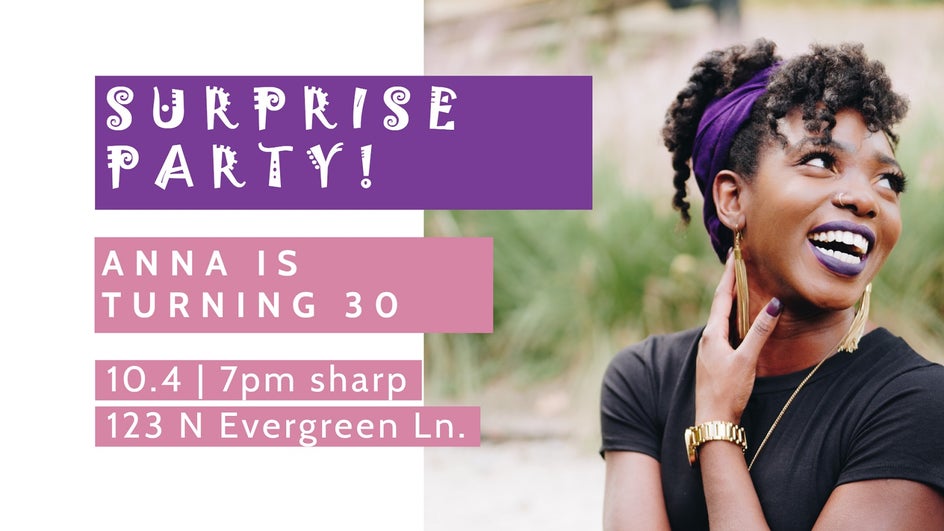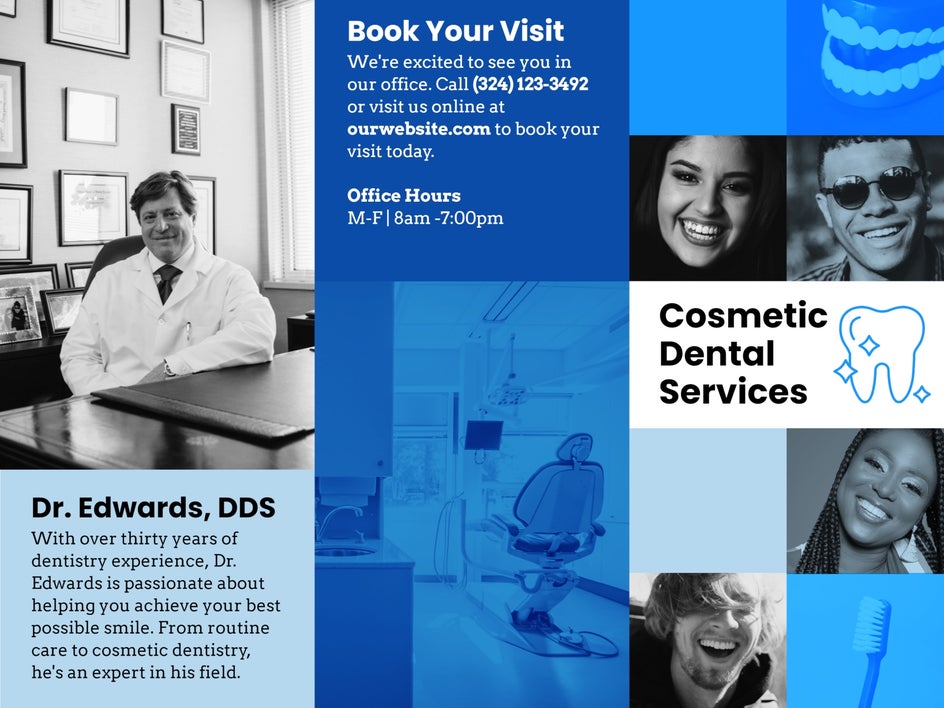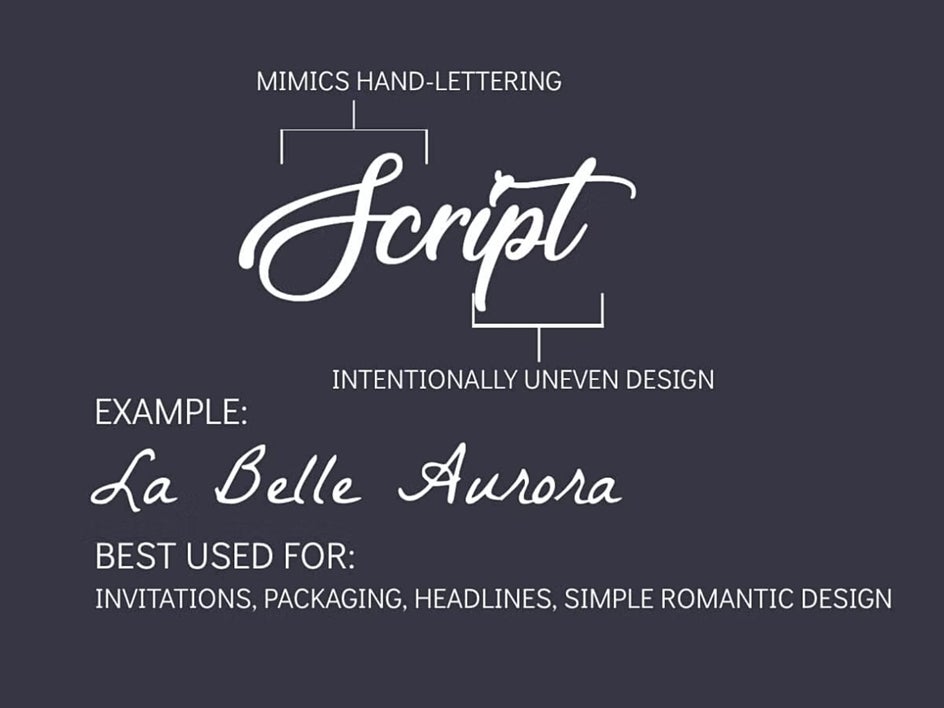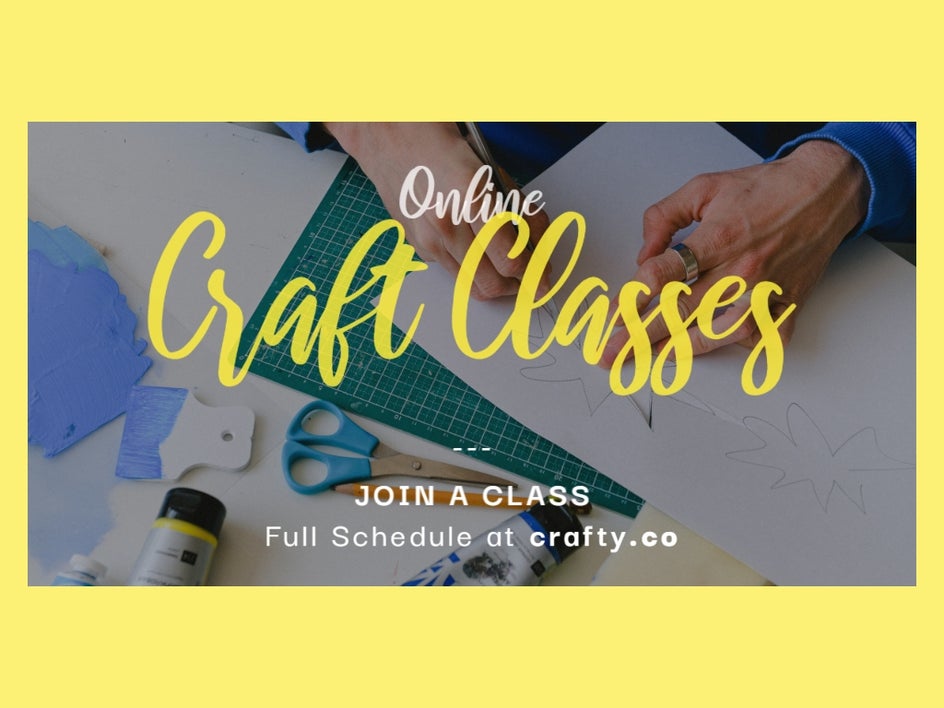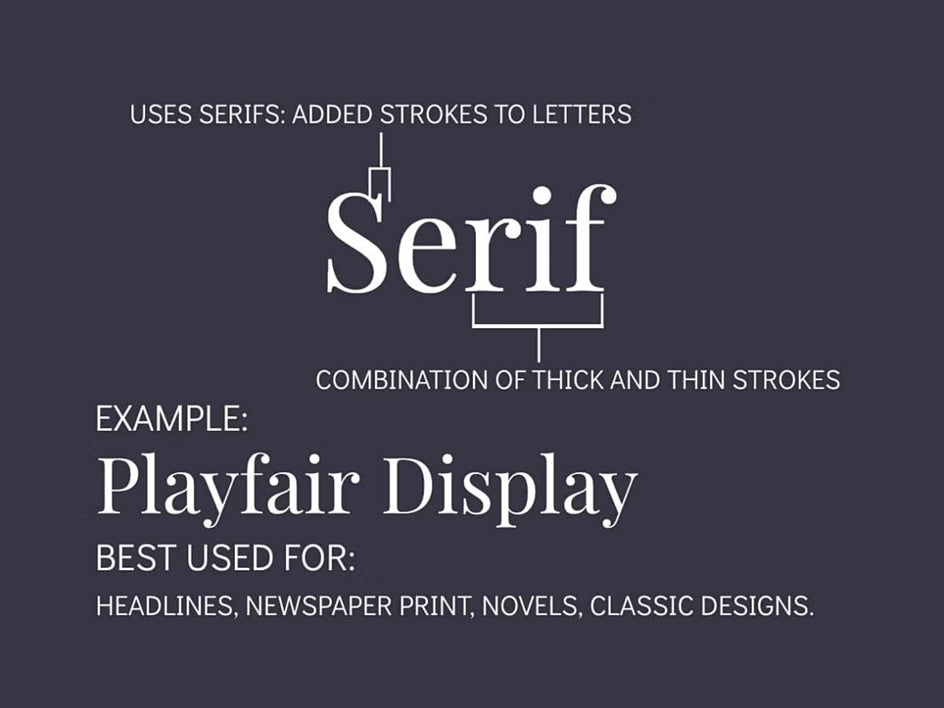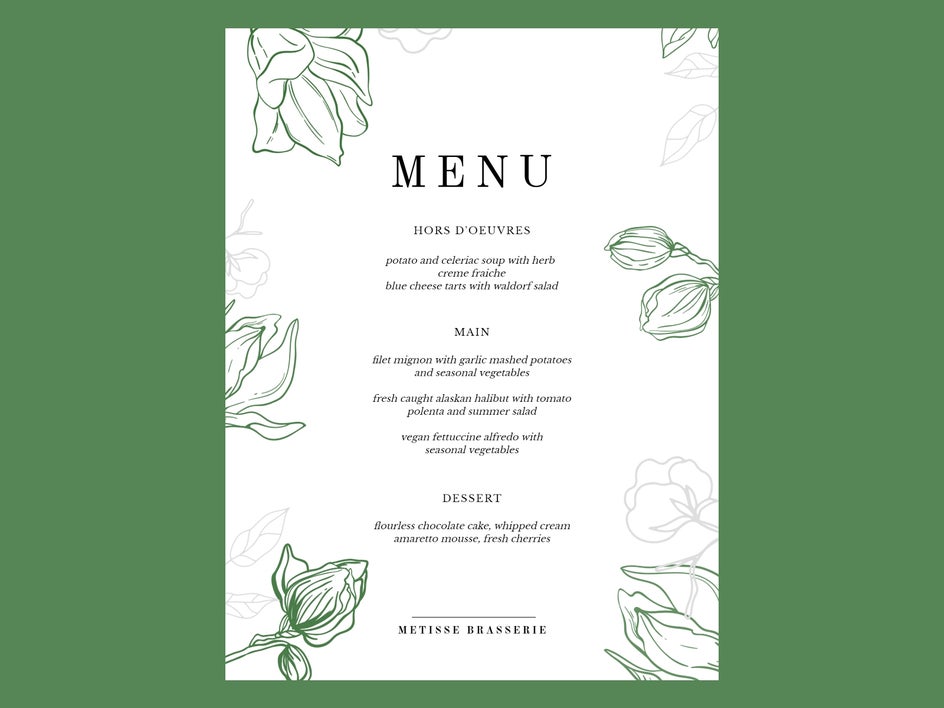
The Best Fonts for Every Occasion
You’ve no doubt heard of color psychology before, but what about the psychology of fonts? The font type you choose to use in your designs isn’t just there to look good. It also influences how others perceive what they’re viewing and can therefore help – or hinder – the message you’re trying to convey.
Best Font Inspiration
Can’t decide between Serif, Sans-Serif, Script, or Display? Don’t worry, we’ve created some design examples to show you which font ideas are worth whipping up and when!
Serif
A Serif font is simply one which contains small decorative marks (known as ‘serifs’) to embellish characters, which also makes them easier to read. When we think of Serif fonts, we tend to imagine those you’d typically see in a newspaper, such as Times New Roman, Garamond, or Baskerville.
Serif fonts imply formality, tradition, respect, and reliability, and are therefore great for using in business related documents, such as CVs, letters, whitepapers, and reports, as well as more formal event invitations or menus.
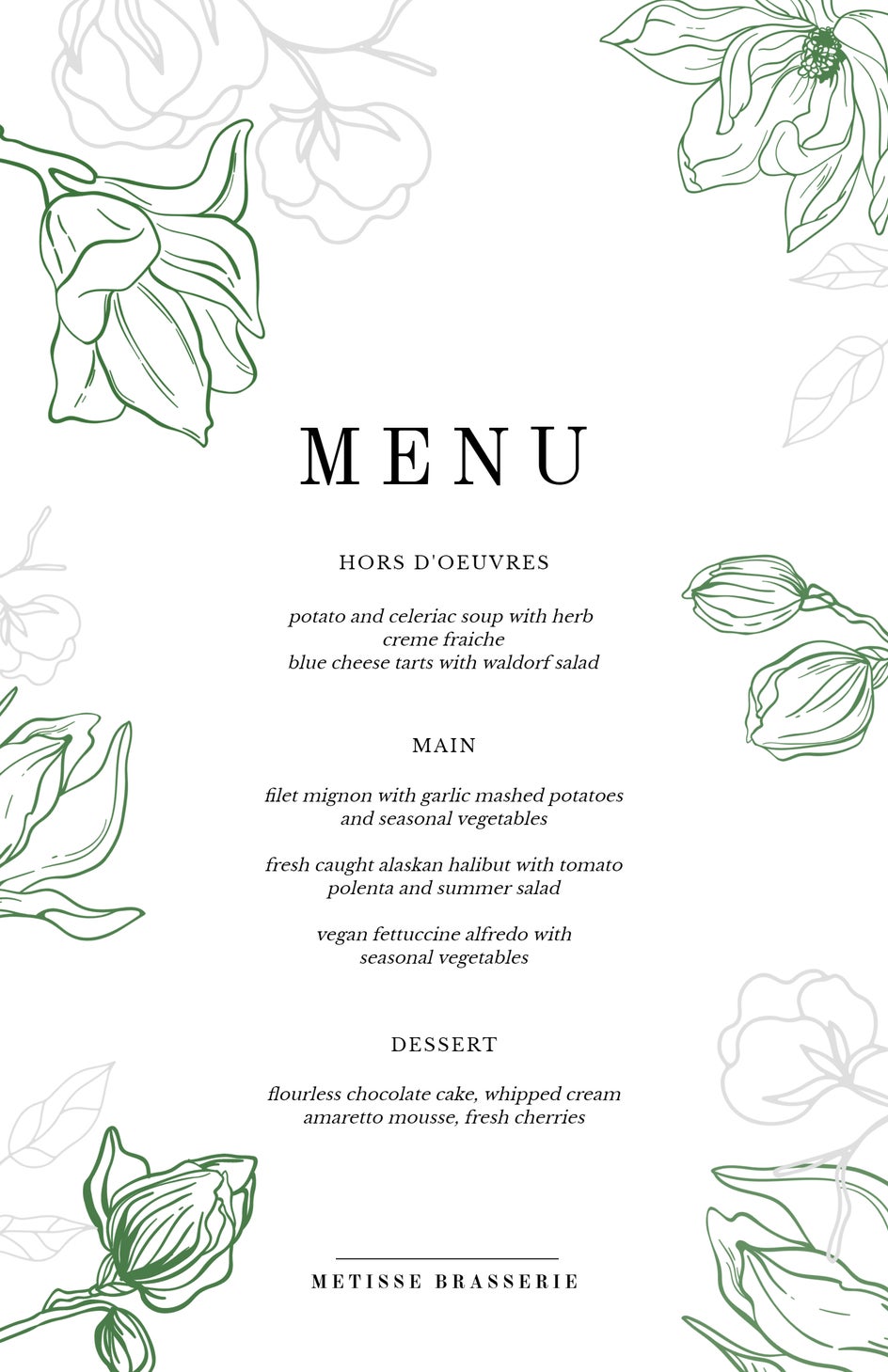
Take this menu, for example, which is intended for a fine dining restaurant. Here, we’ve used the fonts Libre Baskerville and Old Standard TT, which are not only easy to read (especially under dim restaurant lighting) but also do a great job at implying just how fancy this establishment is. Ooh-la-la!
Sans-Serif
Unlike Serif fonts, Sans-Serif fonts don’t contain the small decorative embellishments on their characters. Because of this, they are best reserved for shorter sections of text such as captions or headlines, as they can be a little tricker to read than their Serif counterparts.
Popular Serif fonts include Arial, Helvetica, and Geneva. With their simple, ‘no fuss’ appearance, Sans-Serif fonts convey sensibility, honesty, minimalism, and modernity.
Check out this brochure design for a cosmetic dental practice, for example. The headlines contain the Sans-Serif font Poppins, while the paragraphs underneath feature the Serif font Arvo, allowing them to be more legible, despite the larger chunks of text. It doesn’t matter what type of design you’re working on, you can always rely on a font pairing of a Serif and Sans-Serif!
Script
Script fonts (also known as Decorative fonts) embrace the idea that lettering can also be artistic and eye-catching. In the 19th Century, artists began to experiment with more ornate styles of text in posters and advertisements, and this remains a popular design trend to this day.
From cursive calligraphy to humble handwriting, Script fonts encompass many different looks, and therefore, can convey different messages. The most common feelings they evoke, however, are elegance, creativity, fun, and quirkiness.
As you can see with this Facebook Ad example, the headline “Online Craft Classes” is in the Script font Raustila Regular, while the sub headline text is in the Sans-Serif font Darker Grotesque. The playful headline font instantly captures the viewer’s attention, while also expressing the fun, playful nature of the classes.
Display
Display fonts can come in all shapes and sizes, and sometimes, may even feature characteristics of the previous categories. They differ, however, in the sense that they are designed to only be used as prominent and attention-grabbing headlines, and therefore, are not recommended for use in lengthier chunks of text.
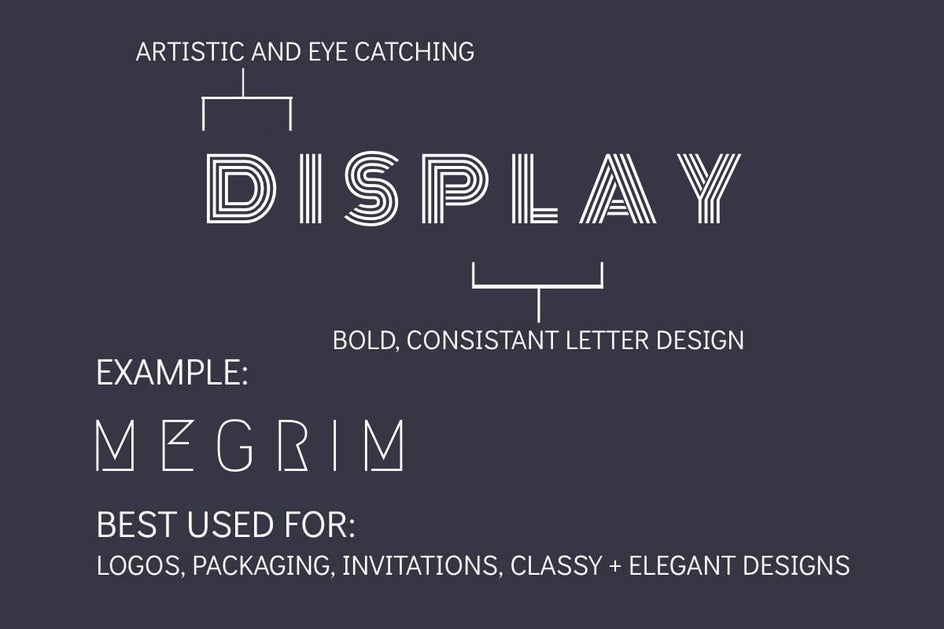
Display fonts make a big, bold statement, which also means the message they convey can vary drastically. When using Display fonts, think carefully about the theme of your piece, then determine if the style of your Display font further complements (rather than detracts from) this idea.
In this invitation design, for example, we’ve used the Display font Jokerman for the headline. Tying in with the surprise party theme, the font is fun, quirky, and anything but average! When it comes to the supporting text, however, we’ve opted for a simple Sans-Serif font (Cabin) to keep the design balanced and easy to read.